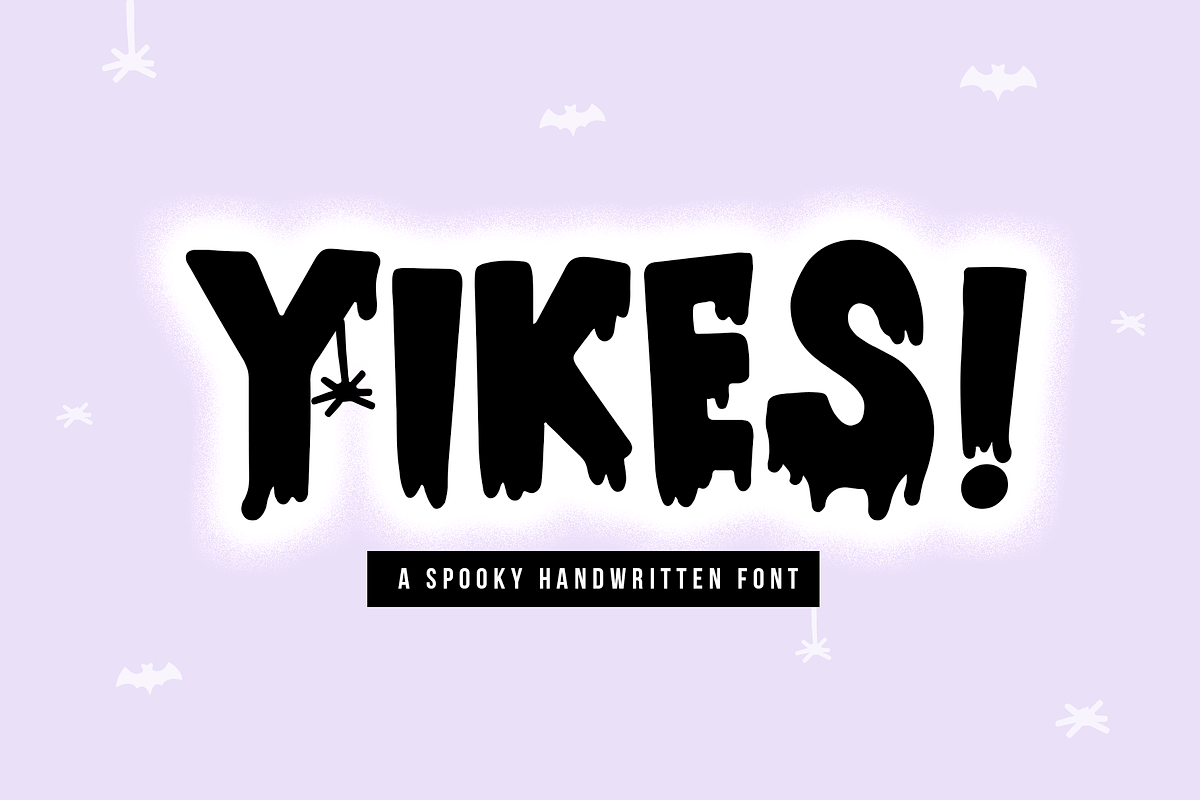
Yikes | Dripping Halloween Font Free Download
Please note, to use this font for commercial purposes, you must purchase the full version. Yikes is a spooky and dramatic Halloween font that captures the eerie vibe of dripping, melting text. With its jagged edges and dripping effect, this font is perfect for creating horror-themed designs, Halloween posters, event invitations, and creepy branding. Whether you're designing for a haunted house, a spooky event, or a chilling Halloween logo, Yikes adds an intense, chilling touch to your work. Test it out and enjoy free download access for personal use. Experience the spooky style of Yikes | Dripping Halloween Font Free Download before purchasing the commercial license. Add a terrifying, dripping touch to your designs with Yikes.